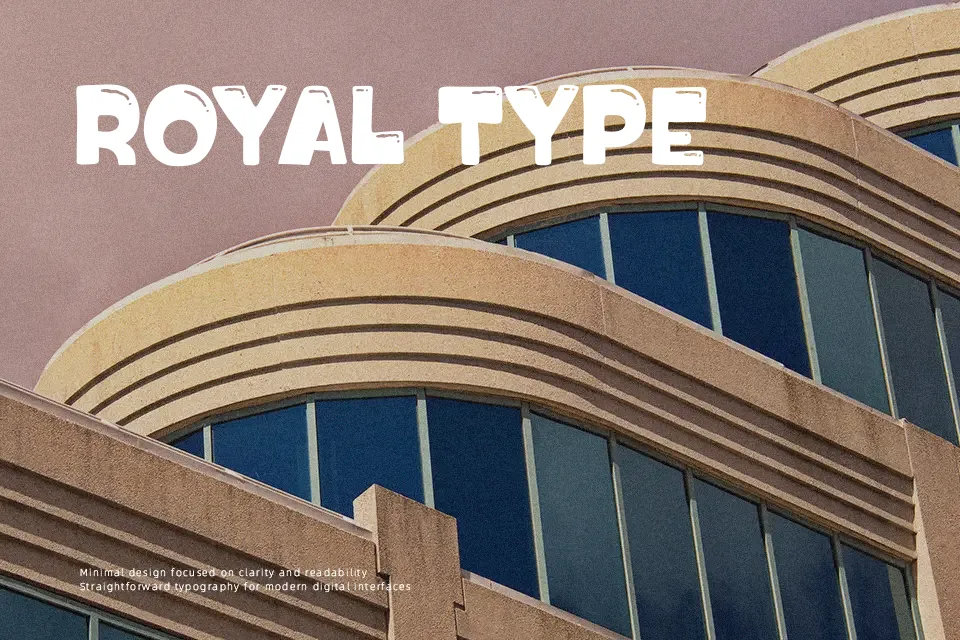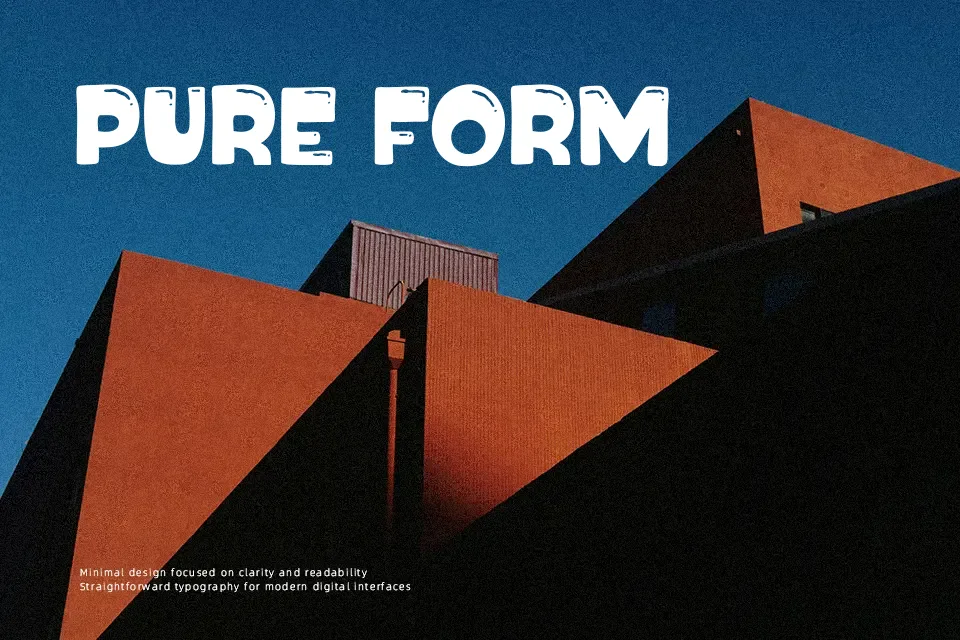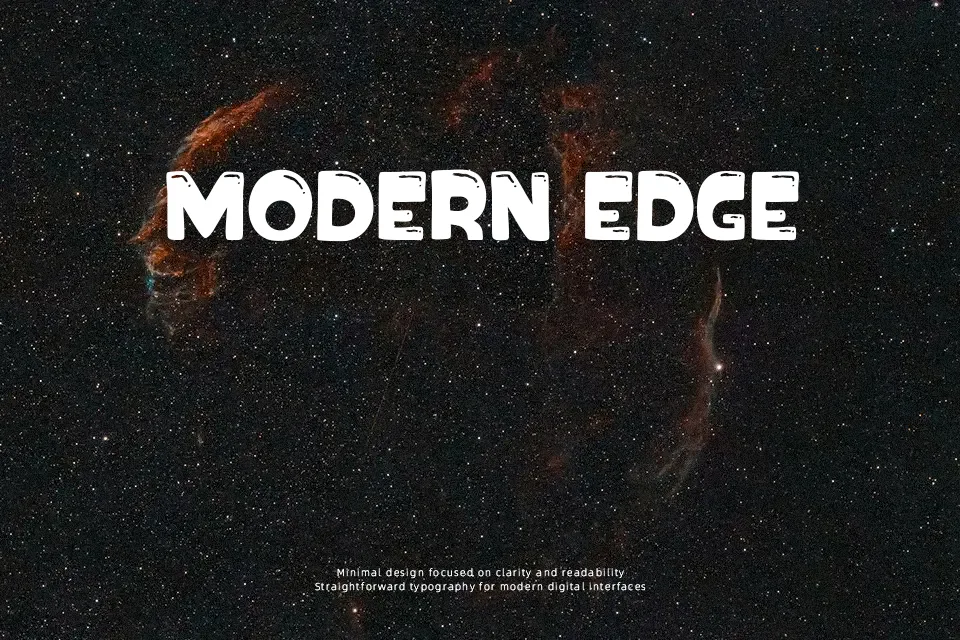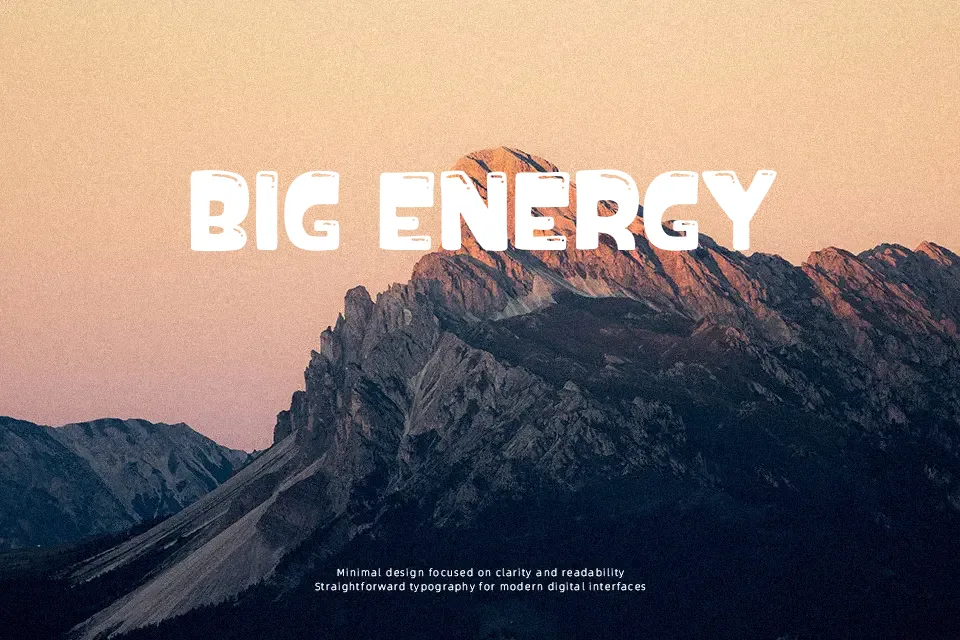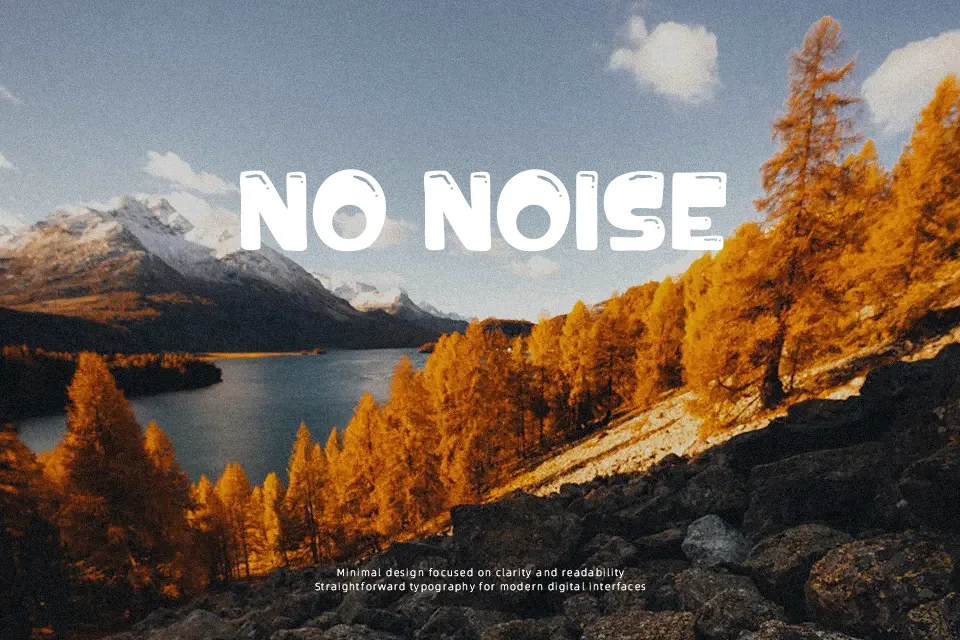
Playgum Font
Designed by Khurasan™
Playgum Font uses thick, rounded letterforms and smooth curves to create a soft cartoon display appearance. The strokes appear consistently heavy, while the broad proportions give uppercase and lowercase characters a substantial, friendly presence. Spacing is close enough to keep words visually compact without making short phrases feel crowded. It suits packaging titles, children’s graphics, and bold promotional headings that need an informal tone. The weight helps preserve visibility in larger text, especially when placed against simple backgrounds. Its decorative, bubble-like forms are less comfortable for extended reading, and small captions may lose some of their character definition.
Best For: children’s poster headlines,snack packaging titles,playful product labels,social media graphics
Perfect for headline, kids, and packaging, with a bubble and cartoon style.